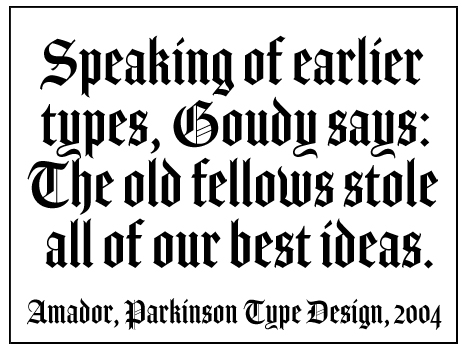
dot-font: A New Version of the Old Blackletter
Jim Parkinson, who has re-drawn the nameplates of innumerable newspapers, has now released his own new blackletter typeface, Amador.
When Jim Parkinson wrote a short booklet about newspaper nameplates (which I reprinted in the book "Contemporary Newspaper Design"), he lamented the lack of currently available blackletter typefaces. Most newspapers, especially in North America, like to use blackletter for their nameplates (that is, the name at the top of the front page, which Parkinson insists should not be called a logo); it's traditional, and it's seen as somehow lending gravitas to the paper -- or at any rate as being what readers expect.
Although there are a number of digital revivals of historical blackletter typefaces, there aren't many, according to Parkinson, that are suitable for a newspaper's nameplate. Now he has released one of his own.
Figure 1: Jim Parkinson's blackletter typeface Amador lends itself to uses such as newspaper names.
The Goudy Influence
Amador harks back to the Arts & Crafts movement, especially its late manifestations in California in the early 20th century, rather than directly to the origins of blackletter type in Northern Europe in the 15th century. Amador is certainly reminiscent of some of Frederic Goudy's blackletter designs, as well as popular revivals such as Cloister Black and Engraver's Old English -- all of which tend to reflect the English tradition of blackletter, based on early textura forms, rather than the ongoing development of blackletter in Germany up into the 20th century.
Parkinson specifically alludes to Frederic Goudy, appropriately enough, in describing Amador's inspiration; surprisingly, he also mentions Rudolf Koch, the famous German calligrapher and punchcutter who created new blackletter faces in the 1920s and 1930s with an eye to tradition but also an eye to the then-recent influence of Jugendstil. The logic of these two influences is not necessarily to be found in the similarity of their type designs, but in Parkinson's sense that he, like them, is working with an old tradition adapted to new uses in a new era.
Figure 2: Amador owes a debt to Frederic Goudy, among others, in its approach to the blackletter design.
Amador is probably not meant to be a text face; most of Parkinson's type designs are either display faces or what I think of as "large-text" faces: useful in magazines and other publications for those short passages that aren't really extended text but aren't simply display type either. It's more of a drawn letter than a written letter -- a distinction that's lost on most readers, but that gets argued about endlessly by type designers. The "drawn" quality of Amador makes sense, given its development out of Parkinson's many re-drawings of short collections of words as the names of newspapers.
It's also not surprising, given its origins, that Amador should be an especially condensed typeface. Blackletter tends to be compact, especially textura, but Amador is noticeably narrower than most of the currently available blackletter faces. This means that, if Amador is used for a nameplate or a title, quite a long word or phrase will fit onto a single line -- a possibility that's always dear to the heart of an art director trying to set display type.
Modern Heavy Metal
Blackletter, of course, is not a popular style of letter today. It was once used as a text type all over Europe, and until the Second World War it was still quite common in Germany. A well-designed blackletter is actually a highly readable and beautiful typeface, for anyone used to reading it; but it's hard to decipher for those who only encounter it now and then. These days, blackletter is largely used for its associations with the past: in Germany, for beer labels; in England and America, for ecclesiastical tidbits and newspaper nameplates. (Also, by playing on these associations, some revised blackletters are used in heavy-metal music posters.)
So Amador is a hybrid, looking "modern" because it reminds us of how blackletter was being used in the early 20th century, but at same time looking "old-fashioned." None of the letterforms are too odd or alien, to the reader whose template is the roman letter. It is not as beautiful as some of the truly amazing blackletter typefaces of the past (which are often in a different style of blackletter, such as schwabacher or fraktur), but it will evoke the nostalgic associations of textura and still be clearly readable. In effect, blackletter today functions as an ornamented letter, and that's how Amador is most likely to be used.
When I was discussing Amador with Paul Shaw and Peter Bain, the co-editors of the excellent study "Blackletter: Type and National Identity" (Cooper Union/Princeton Architectural Press, 1998), they pointed out something that I might not have noticed: Parkinson has not designed a typeface identical to any of the blackletter styles that he letters for newspapers. He hasn't given away his own bread and butter.
For a major project like re-designing or restoring the nameplate of a major newspaper, it's still necessary to call in an expert. But for less rarified work, Jim Parkinson has given us a handy new tool.